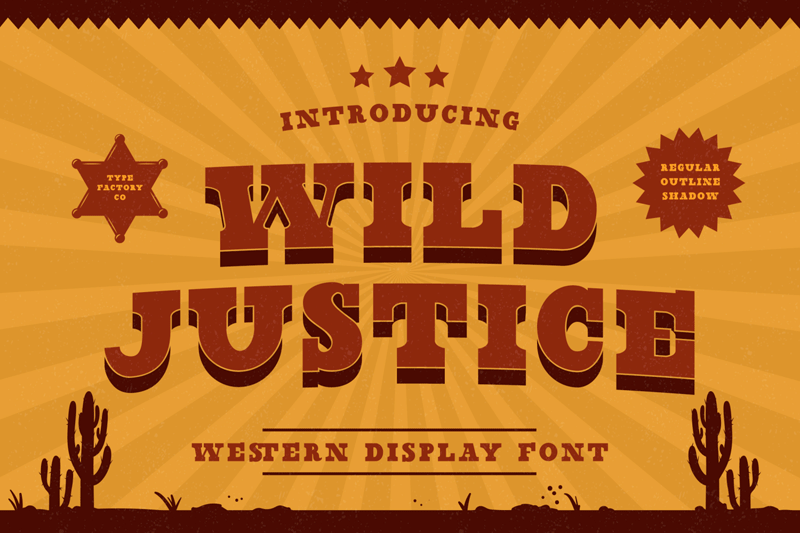
Font name: | Wild Justice |
Author: | Type Factory |
Note by Type Factory | |
Wild Justice is a western-looking display font inspired by cowboy styles. It inspires strength and creates an old-fashioned feel, perfect for newspaper titles, book covers, magazines, and other beautiful creations! Full Version Download Here : https://typefactory.co/product/wild-justice-western-display-font/ https://www.creativefabrica.com/product/wild-justice/ |